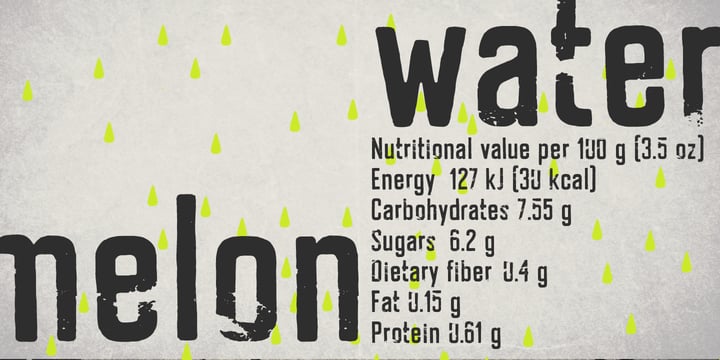
Justyna Sokolowska
To design a font Erazm, I was inspired by books from 30's from Poland. From a few letters I created whole typeface - lower and uppercase characters.